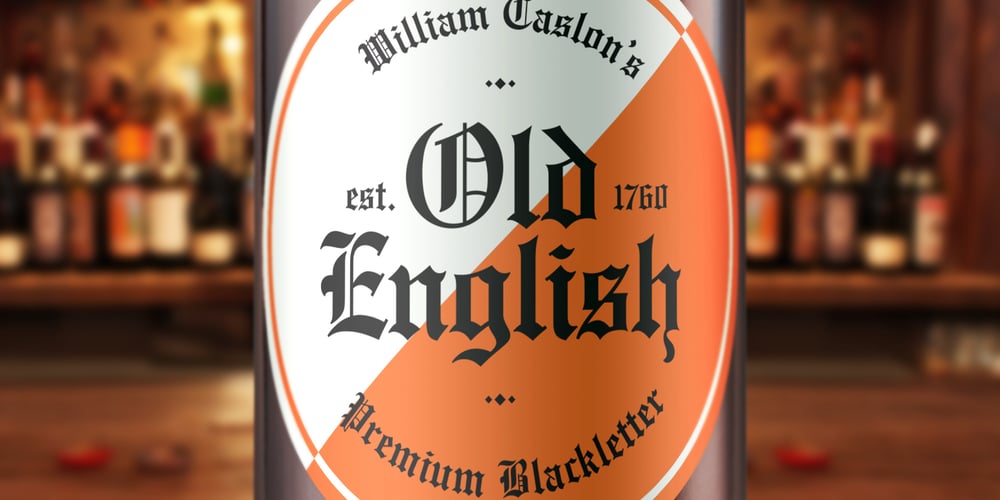
Old English (Let) Font Family was designed by William Caslon and published by ITC. Old English (Let) contains 1 styles and family package options. Old English is a digital font that was produced by Monotype’s design staff, circa 1990. But its roots go much further back: the face’s design is based on that of Caslon Black, a Blackletter type cast by the venerable William Caslon foundry in England, circa 1760. This design has been popular throughout England for centuries. Its style of lettering, conveniently also called Old English, can be found all over the UK. Old English-style typefaces belong to the Blackletter category. They nicely combine the design attributes of both the medieval and Victorian eras. This is mostly because their Textura forms, which were born during the Middle Ages, became quite fashionable again in the late 1800s! This Old English font is very legible for a Blackletter face. Perhaps that is why it is more familiar to readers in the UK and North American than German Blackletter varieties, like Fraktur. A favorite once again today, Old English is ideal for certificates, diplomas, or any application which calls for the look of stateliness and authority. It’s a sturdy and sure bet for newspaper banners, holiday greeting cards, and wedding announcements.